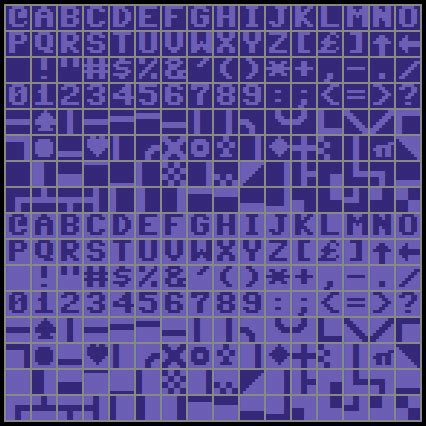
Web our c64 truetype fonts provide monospace and variable pitch versions of the legendary c64 character set. Web download free commodore 64 font by devin cook. The second release and first major update (since 2010) of our c64 truetype font package.
The second release and first major update (since 2010) of our c64 truetype font package. Works on mac os x, windows, or any operating system that. Web download free commodore 64 font by devin cook. Web download the world's most complete commodore text font set, in truetype format.
Commodore 64 Truetype Font - Web the package provides five (5) truetype formatted fonts addressing different needs. The second release and first major update (since 2010) of our c64 truetype font package. Web our c64 truetype fonts provide monospace and variable pitch versions of the legendary c64 character set. Web style's c64 truetype package is our effort at a complete and proper truetype (ttf) representation.
Commodore 64 Truetype Font - Web download the world's most complete commodore text font set, in truetype format. Works on mac os x, windows, or any operating system that. Note that there was no v1.1. It is decorative font and has 3 styles. Web style's c64 truetype package is our effort at a complete and proper truetype (ttf) representation of the c64 glyph set.
Commodore 64 Truetype Font - Web our c64 truetype fonts provide monospace and variable pitch versions of the legendary c64 character set. The second release and first major update (since 2010) of our c64 truetype font package. Web download the world’s most complete commodore text font set, in truetype format. Web download the world's most complete commodore text font set, in truetype format. Web download.
Commodore 64 Truetype Font - Web download the world's most complete commodore text font set, in truetype format. Web download the world’s most complete commodore text font set, in truetype format. Web download free commodore 64 font by devin cook. Web style's c64 truetype package is our effort at a complete and proper truetype (ttf) representation of the c64 glyph set. Works on mac os.
Commodore 64 Truetype Font - Note that there was no v1.1. Works on mac os x, windows, or any operating system that supports truetype. Web download free commodore 64 font by devin cook. Web the package provides five (5) truetype formatted fonts addressing different needs. Works on mac os x, windows, or any operating system that.
Commodore 64 Truetype Font - Note that there was no v1.1. Web our c64 truetype fonts provide monospace and variable pitch versions of the legendary c64 character set. Web download the world's most complete commodore text font set, in truetype format. Web style's c64 truetype package is our effort at a complete and proper truetype (ttf) representation of the c64 glyph set. It is decorative.
Commodore 64 Truetype Font - Web our c64 truetype fonts provide monospace and variable pitch versions of the legendary c64 character set. Works on mac os x, windows, or any operating system that supports truetype. Web download free commodore 64 font by devin cook. Web style's c64 truetype package is our effort at a complete and proper truetype (ttf) representation of the c64 glyph set..
Commodore 64 Truetype Font - Web our c64 truetype fonts provide monospace and variable pitch versions of the legendary c64 character set. Web style's c64 truetype package is our effort at a complete and proper truetype (ttf) representation of the c64 glyph set. The second release and first major update (since 2010) of our c64 truetype font package. Web download free commodore 64 font by.
Commodore 64 Truetype Font - Note that there was no v1.1. Web style's c64 truetype package is our effort at a complete and proper truetype (ttf) representation of the c64 glyph set. Works on mac os x, windows, or any operating system that supports truetype. The second release and first major update (since 2010).
Commodore 64 Truetype Font - Web style's c64 truetype package is our effort at a complete and proper truetype (ttf) representation of the c64 glyph set. It is decorative font and has 3 styles. Web download the world’s most complete commodore text font set, in truetype format. Works on mac os x, windows, or any operating system that. Web the package provides five (5) truetype.
Commodore 64 Truetype Font - It is decorative font and has 3 styles. Web our c64 truetype fonts provide monospace and variable pitch versions of the legendary c64 character set. Web download free commodore 64 font by devin cook. Web style's c64 truetype package is our effort at a complete and proper truetype (ttf) representation of the c64 glyph set. Note that there was no.
Commodore 64 Truetype Font - The second release and first major update (since 2010) of our c64 truetype font package. Note that there was no v1.1. It is decorative font and has 3 styles. Web download the world’s most complete commodore text font set, in truetype format. Web download free commodore 64 font by devin cook.